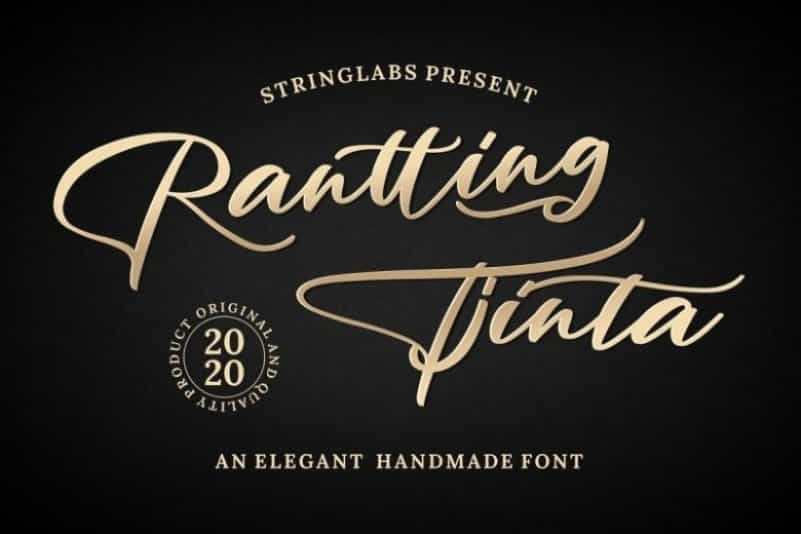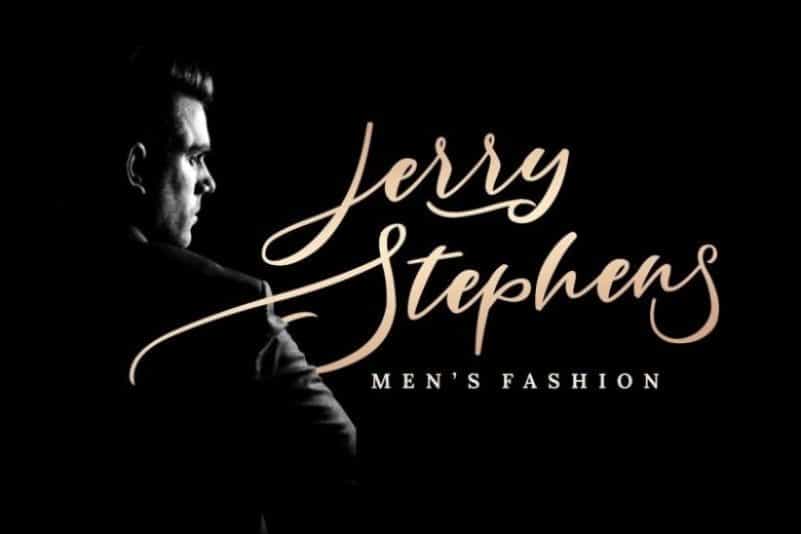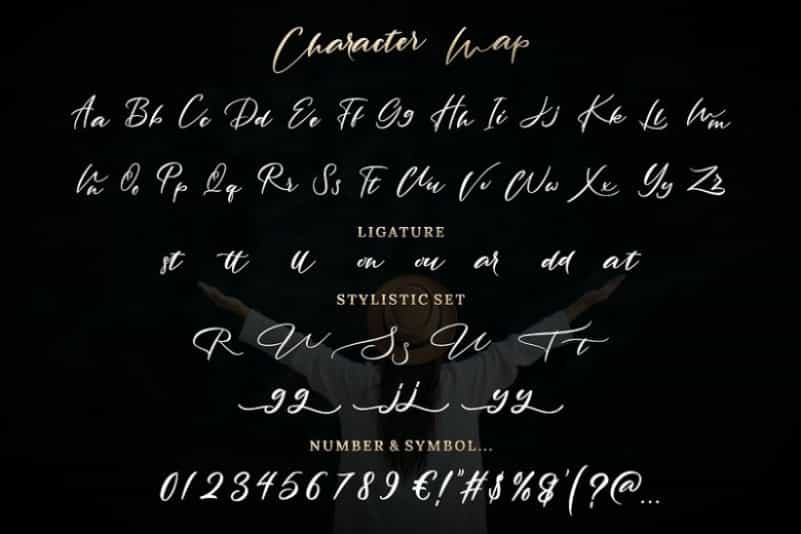
Rantting Tjinta is a hand lettered calligraphy font that is unique and more personal in it’s appearance. It can be used for logos, product design, labels, watermarks, social media posts, apparel designs, invitations, signboards, sports clubs, car communities special events, and any other thing that requires an aesthetic.